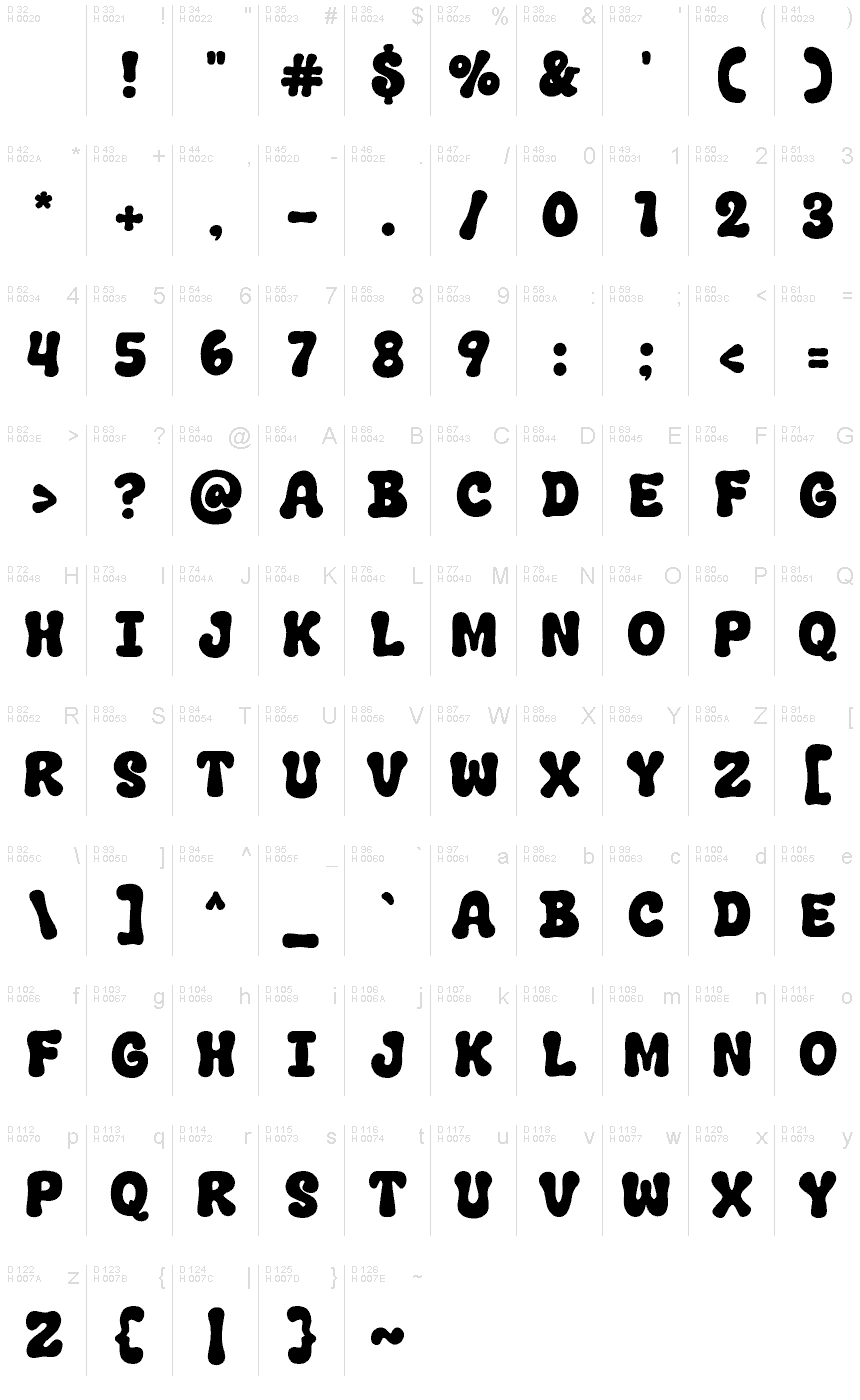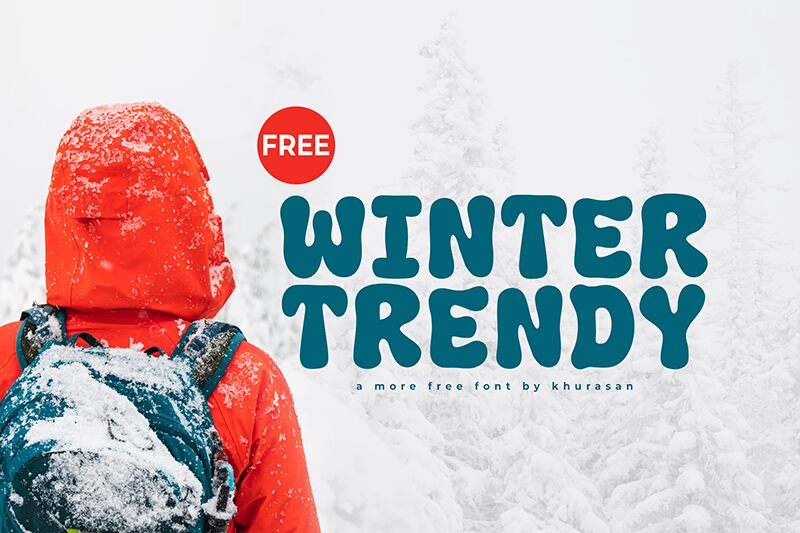
Winter Trendy
Winter Trendy font by Khurasan is a cartoon display typeface with a playful and approachable style. Its bold appearance, rounded edges, and retro vibe create a friendly tone suitable for informal contexts. This typeface was designed for modern branding applications.